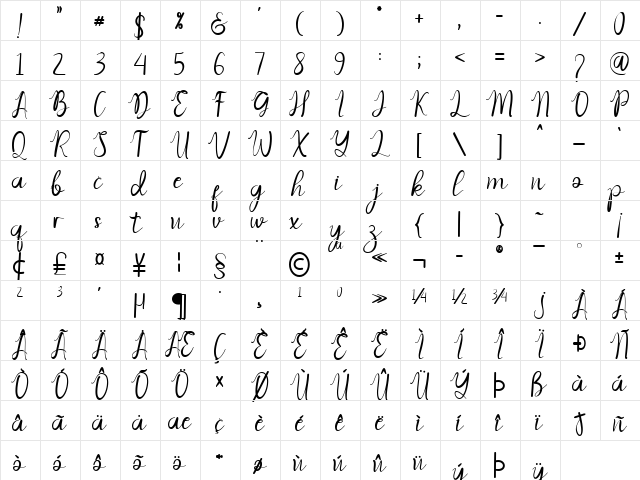
With Danilla Regular
| Designer | Yogaletter (Isroni Yoga Prasetya) |
Design Context for With Danilla Typeface
With Danilla is a composed and adaptable typeface that performs quietly and consistently across a wide range of design contexts.